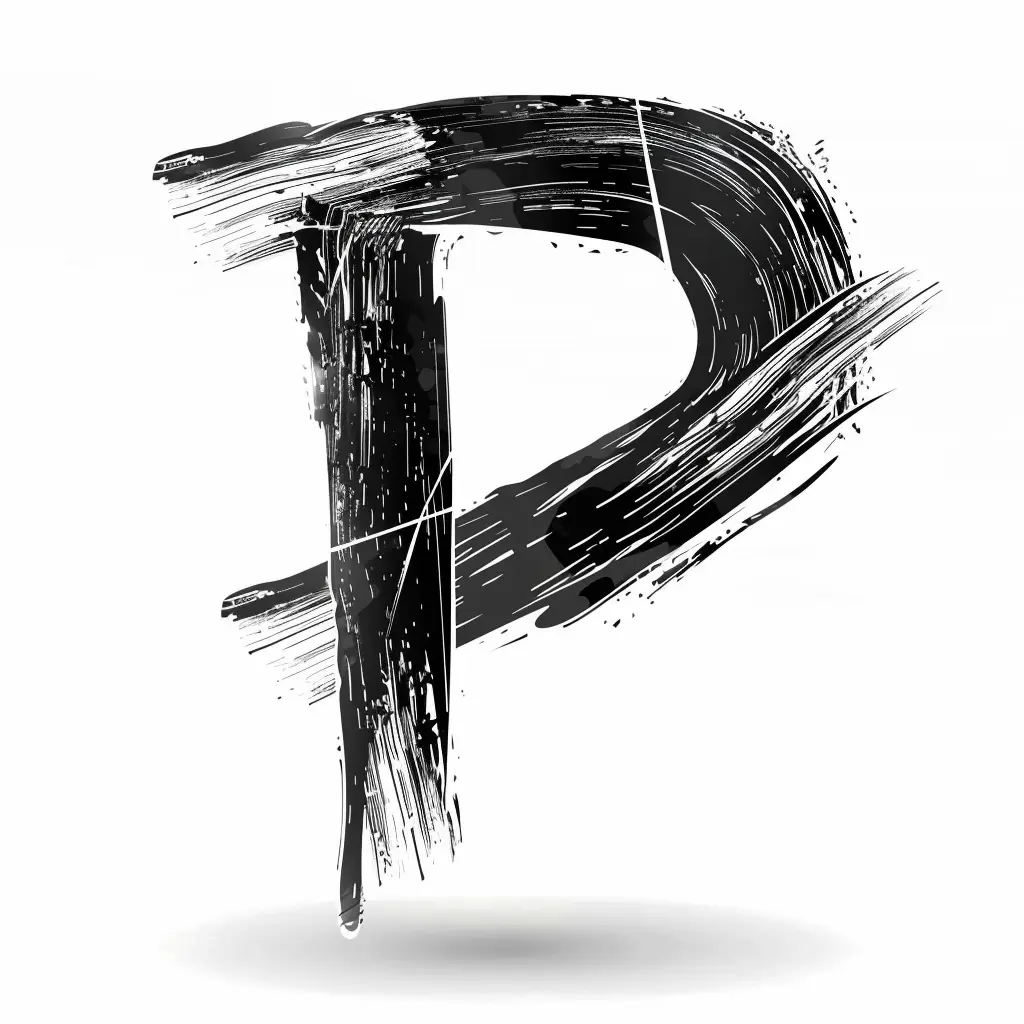
letter P brush ink black and white art font stroke
The image features a stylized letter "P" rendered in a bold, brushstroke-inspired design. The letter is predominantly black with textured, dynamic strokes and subtle white highlights, set against a clean white background. A soft, gray shadow beneath the letter adds depth, emphasizing its artistic, hand-painted aesthetic.